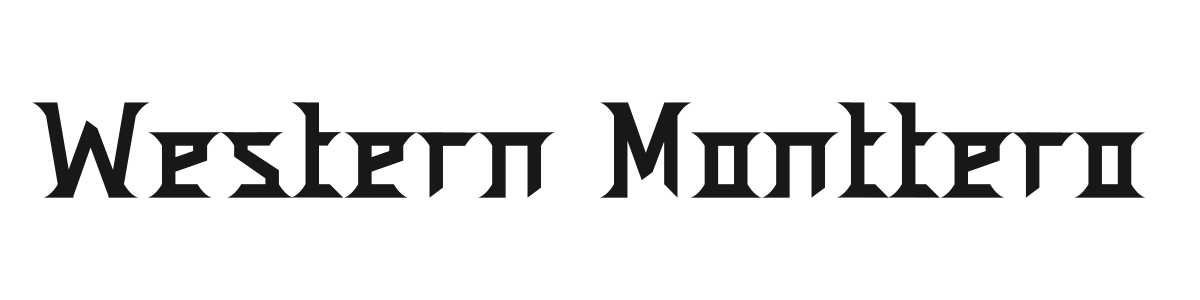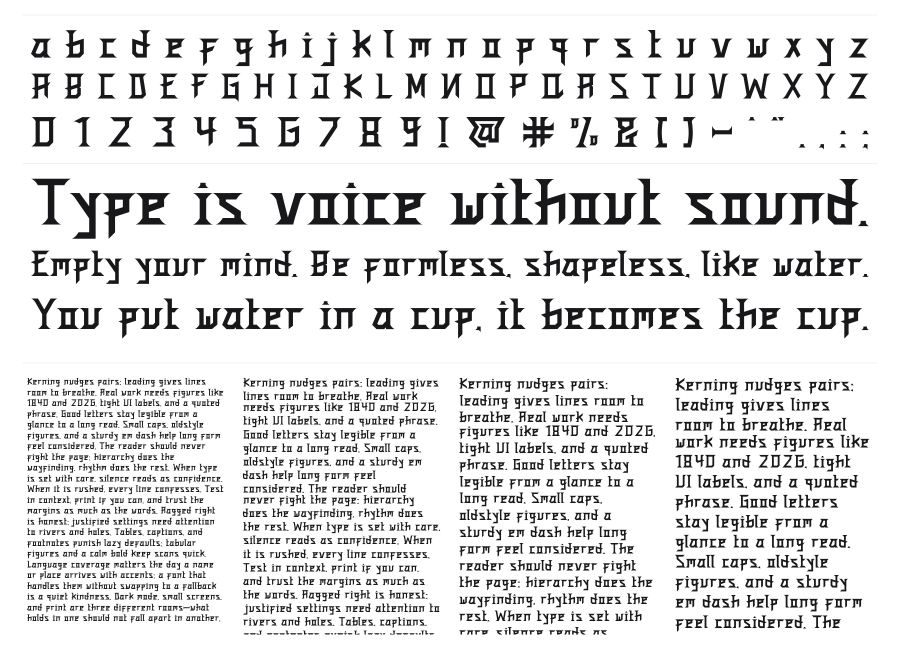
Western Monttero
Western Monttero is a bold gothic display font that fuses blackletter structure with Western woodtype attitude. Sharp angular cuts, notched junctions, and flat horizontal terminals create a heavy, aggressive character that reads with equal conviction on concert posters, branded apparel, or game titles. The thick stems and crisp hairlines keep it legible at large sizes even as the design leans hard into drama.